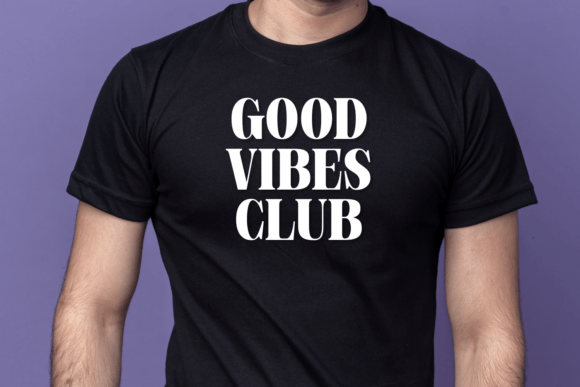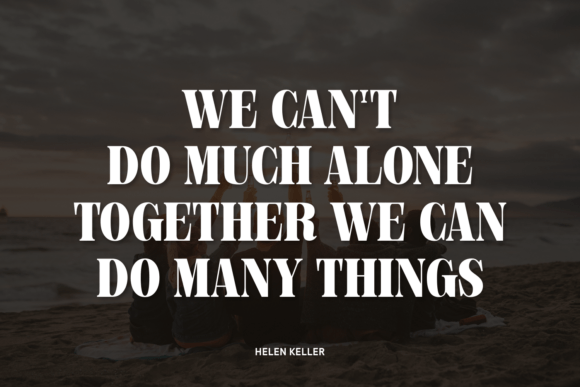
The Elegant Emryn Font: A Designer’s New Best Friend
I still remember the design project that led me to discover the Emryn font. I was working on a branding project for a luxury skincare brand, and I was struggling to find the perfect font that exuded both sophistication and warmth. The client wanted a font that would convey a sense of high-end quality, yet approachability. After hours of scouring through font libraries, I stumbled upon Emryn, and it was love at first sight! 💕
An Honest Review of Emryn Font
What I Love About Emryn ✨
- 💯 Elegant and refined serif design with delicate curves
- ✅ Perfect for branding and editorial designs
- 🌟 Combines sophistication with warmth and approachability
- 🎨 Highly versatile and works well in various design contexts
- ⚠️ Limited availability of certain OpenType features in some platforms
- 🤔 May require manual kerning for optimal results
The Story Behind Emryn Font
Emryn was designed by a team of typographers who wanted to create a font that would combine the elegance of traditional serif fonts with the warmth and approachability of modern fonts. The team drew inspiration from classic serif fonts, such as Garamond and Bodoni, and infused them with modern elements, such as clean lines and delicate curves. The result is a font that is both sophisticated and approachable, making it perfect for branding and editorial designs.
| What is Emryn font best used for? | Emryn font is best used for branding and editorial designs that require a touch of sophistication and warmth. |
| Is Emryn font suitable for body text? | Yes, Emryn font is suitable for body text, especially in larger sizes. However, it may require manual kerning for optimal results. |
| Is Emryn font available in multiple weights? | Yes, Emryn font is available in multiple weights, including regular, italic, bold, and bold italic. |